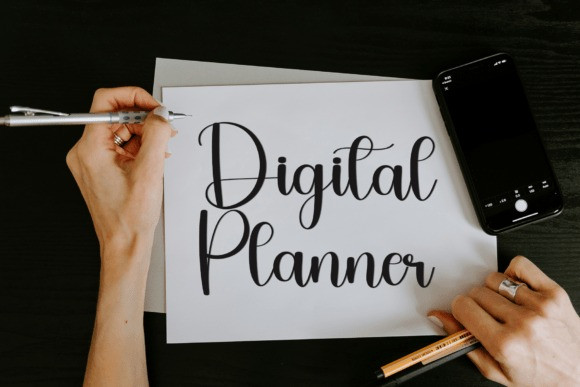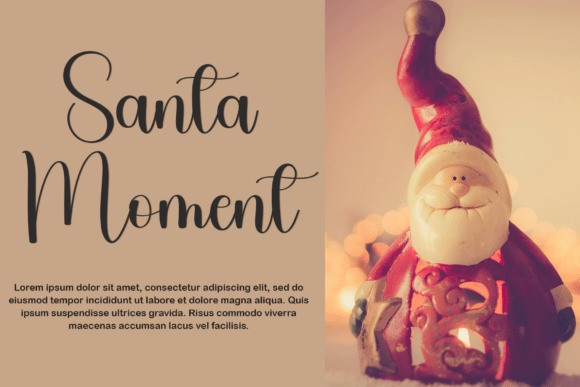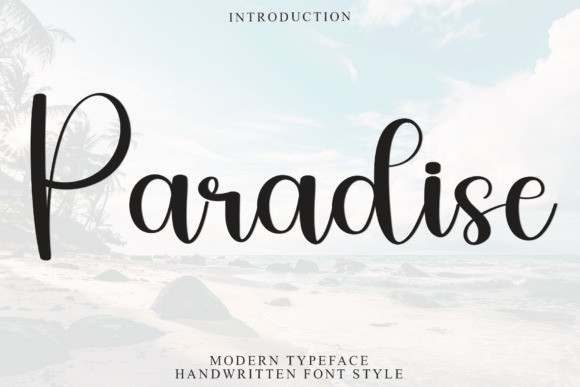
Paradise Style Script Font
Paradise Style Script Font is a lovely and timeless handwritten font. It is the best choice for creating eye catching logos, branding and quotes. Every letter has a unique and beautiful touch, which will make your design come alive!